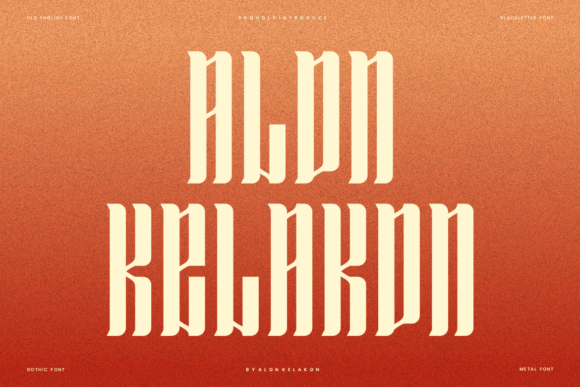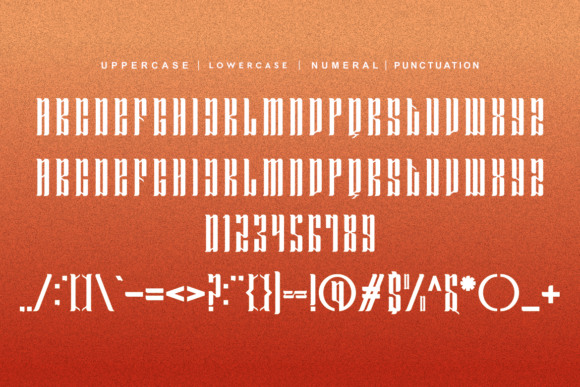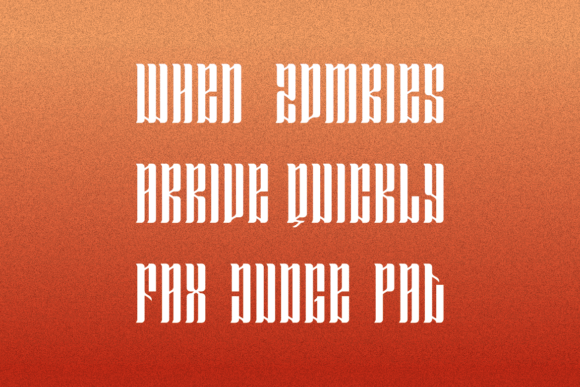
Introduction to Quetynor Font
Quetynor is a unique and interesting blackletter font.
A little bit quirky, this font looks incredibly adept on a wide variety of contexts .
Key Features of Quetynor Font
Why Choose Quetynor Font?
Quetynor Font offers exceptional quality and versatility, making it a valuable addition to your design toolkit. Whether you’re creating for personal projects or commercial use, Quetynor Font delivers professional results.